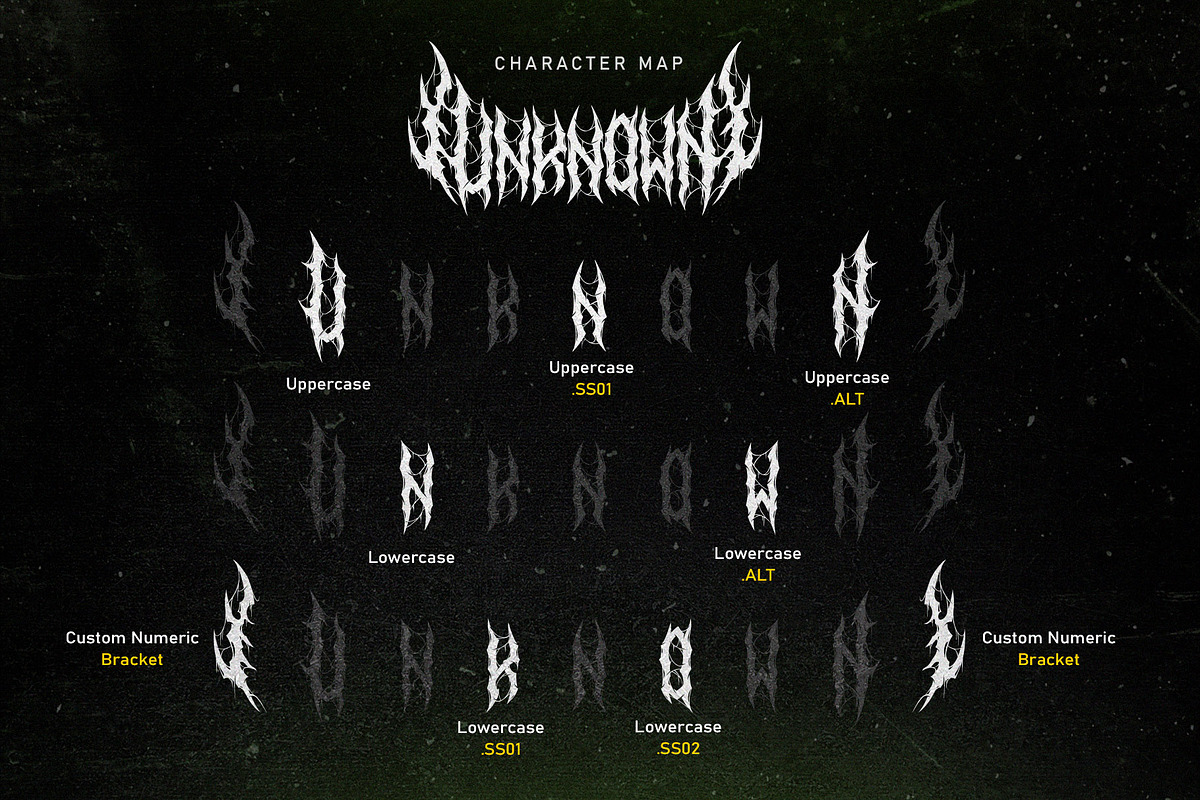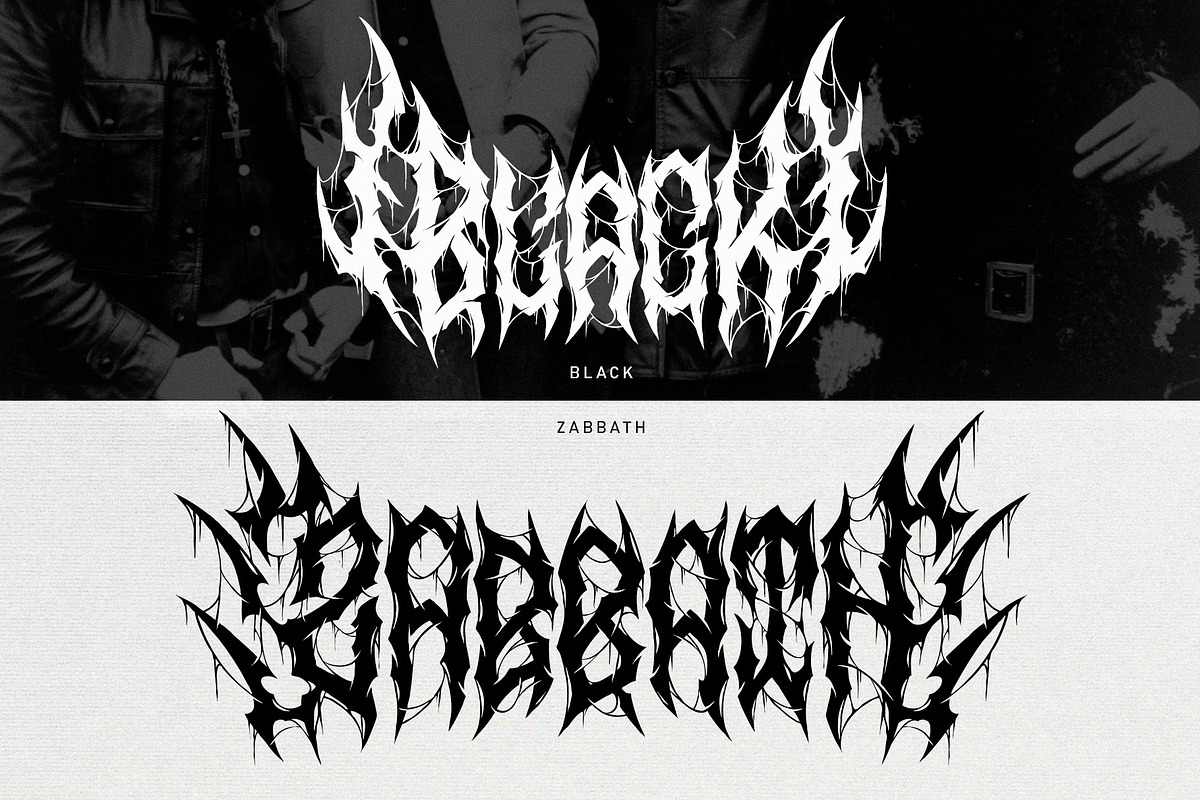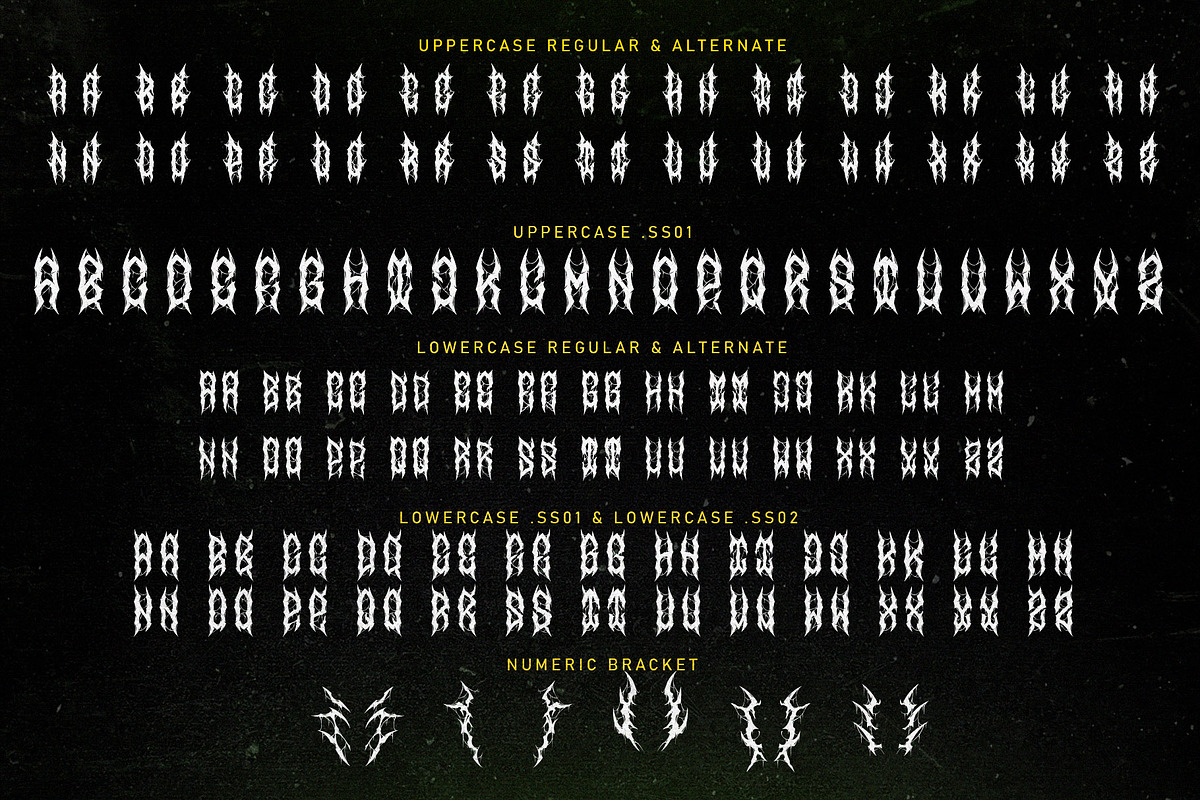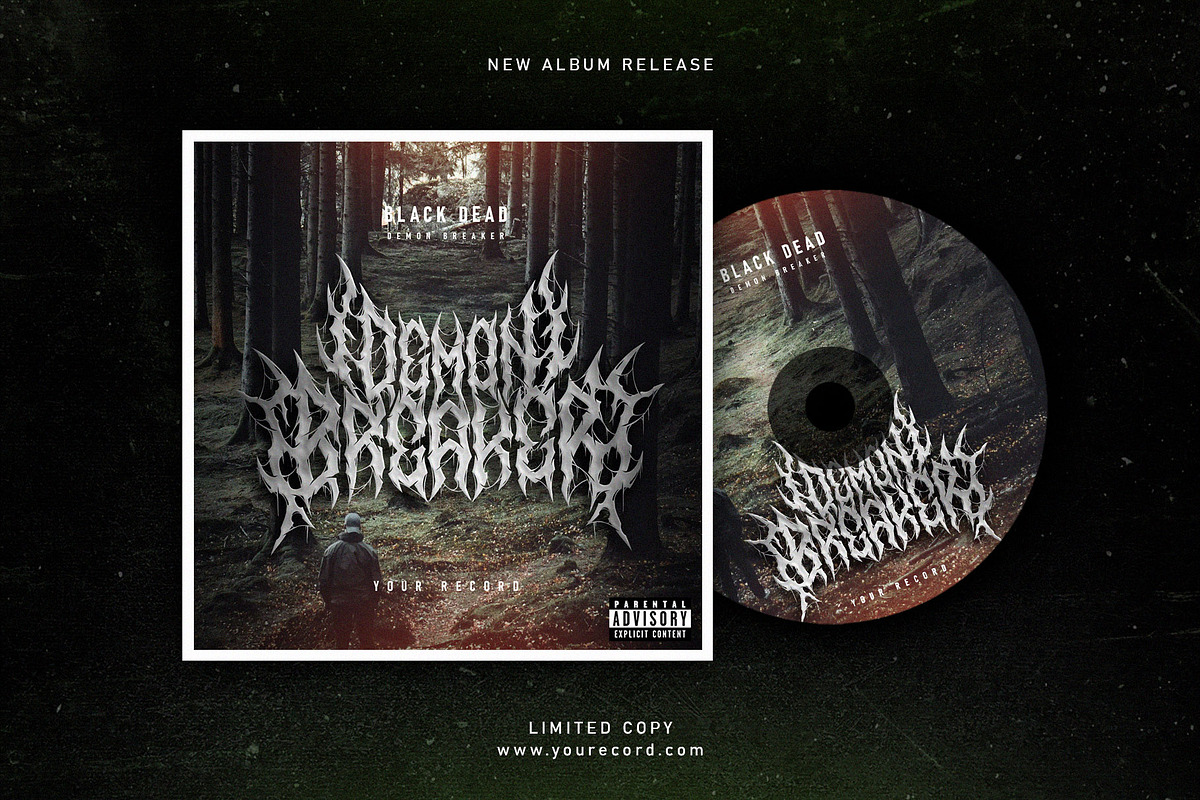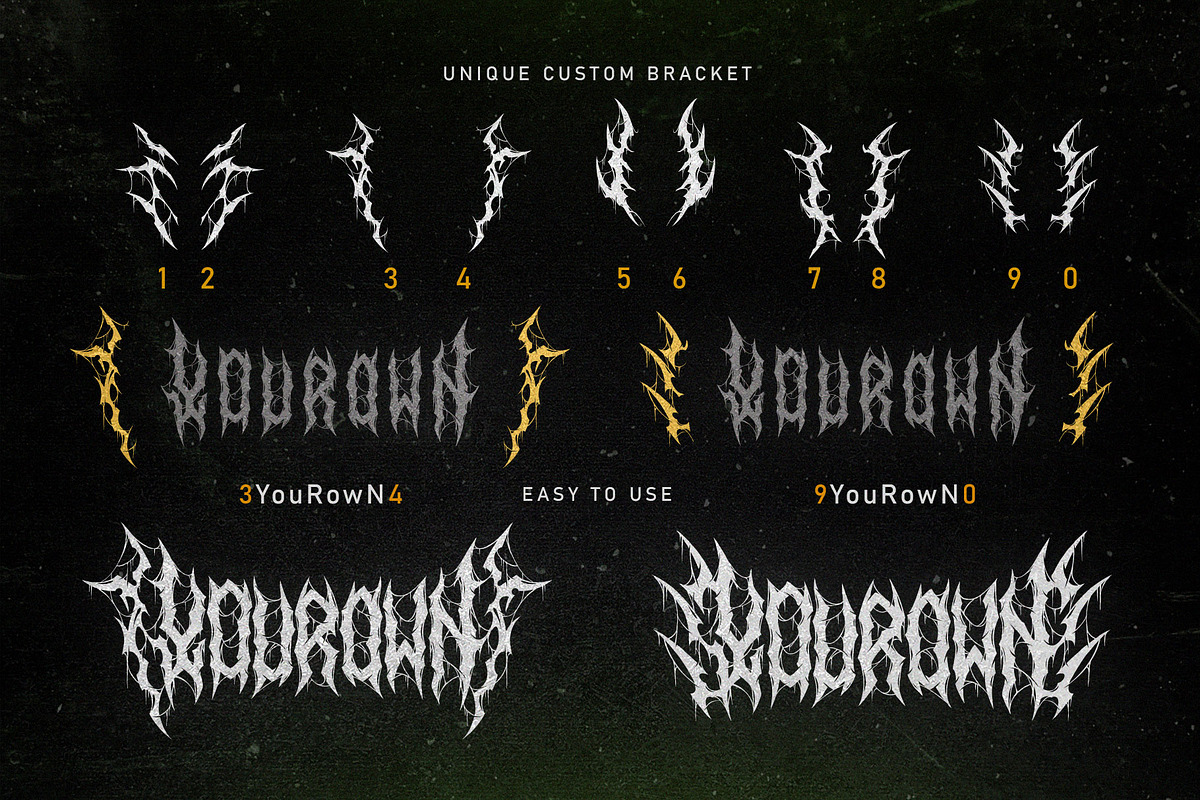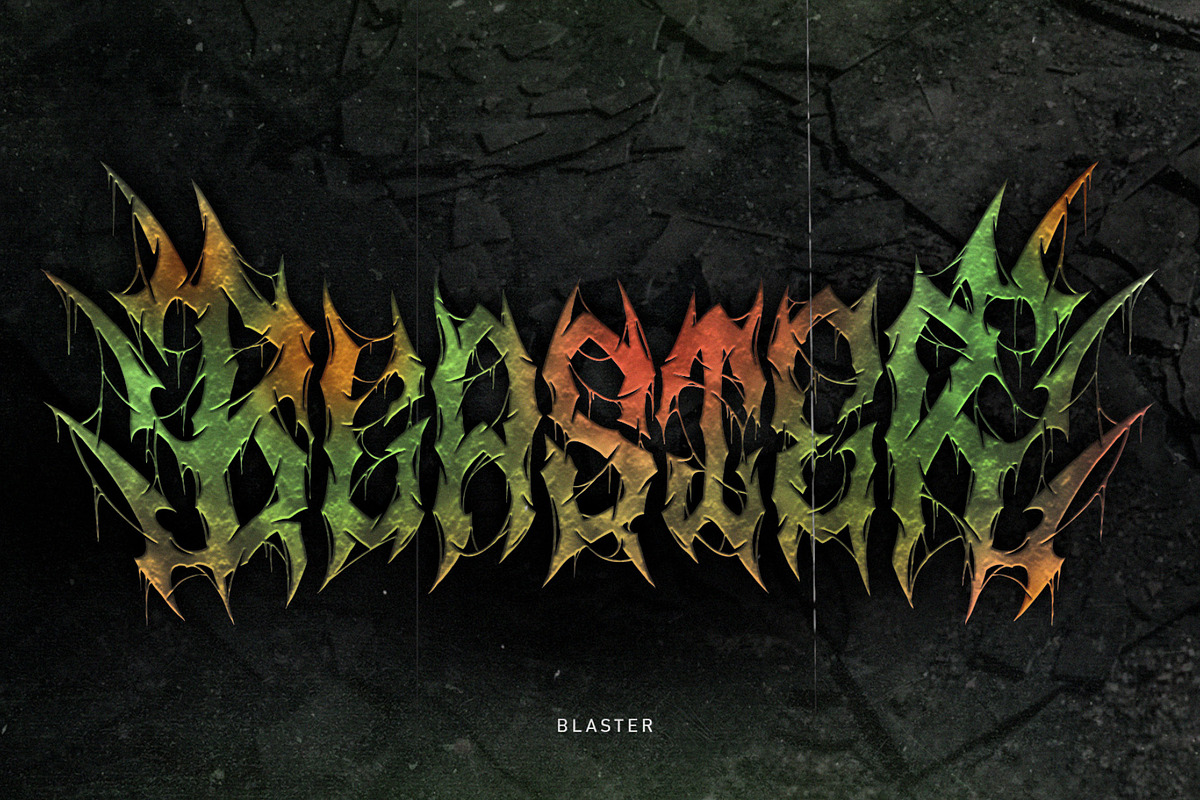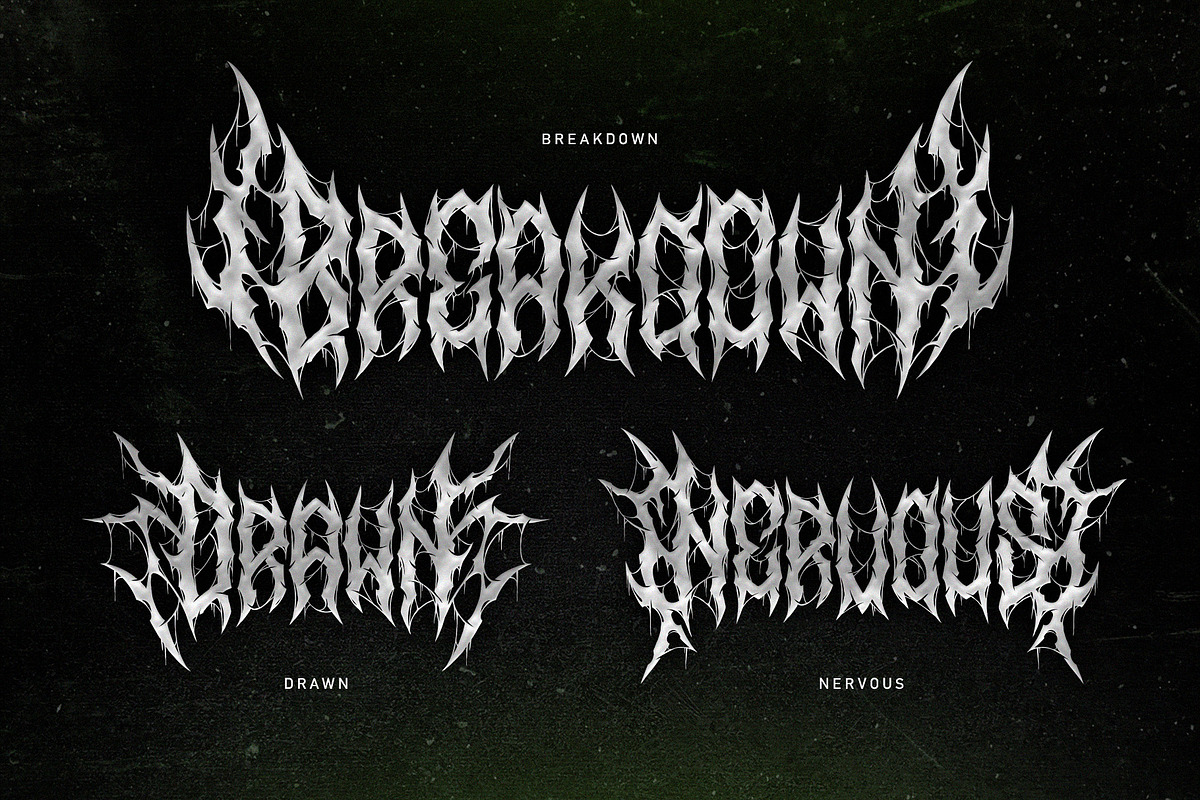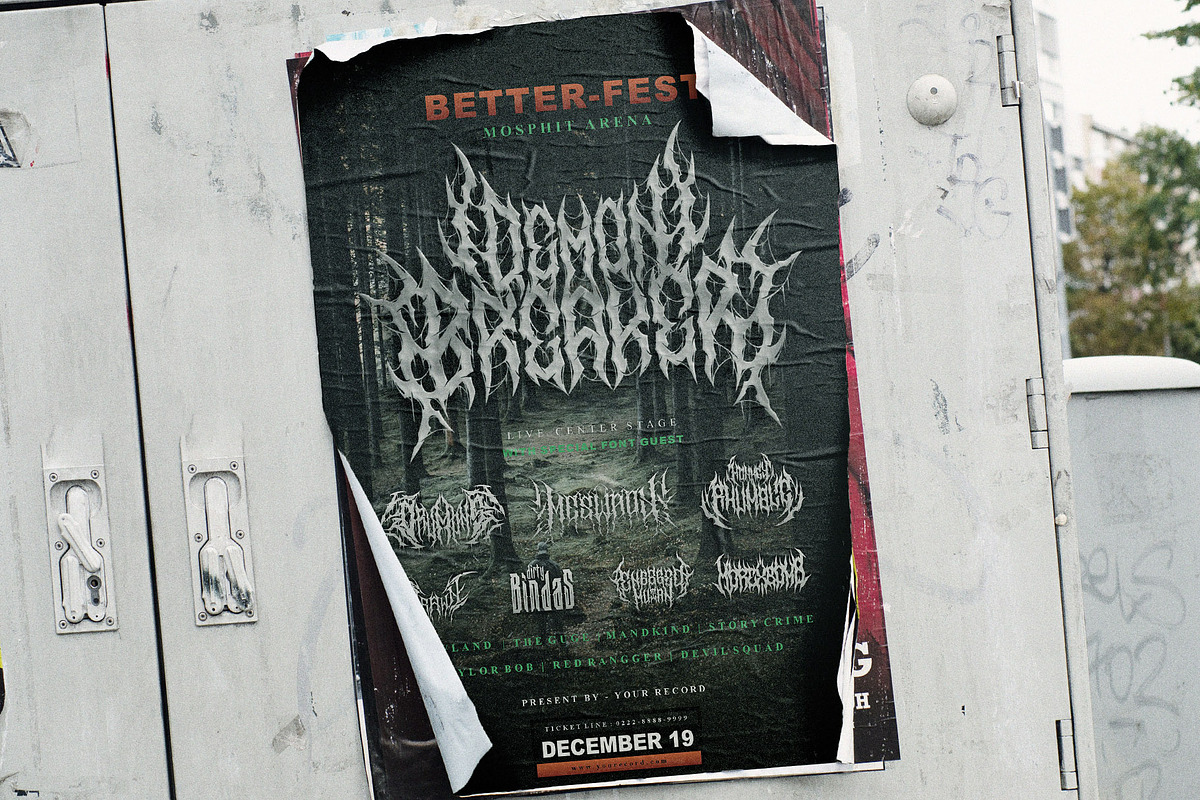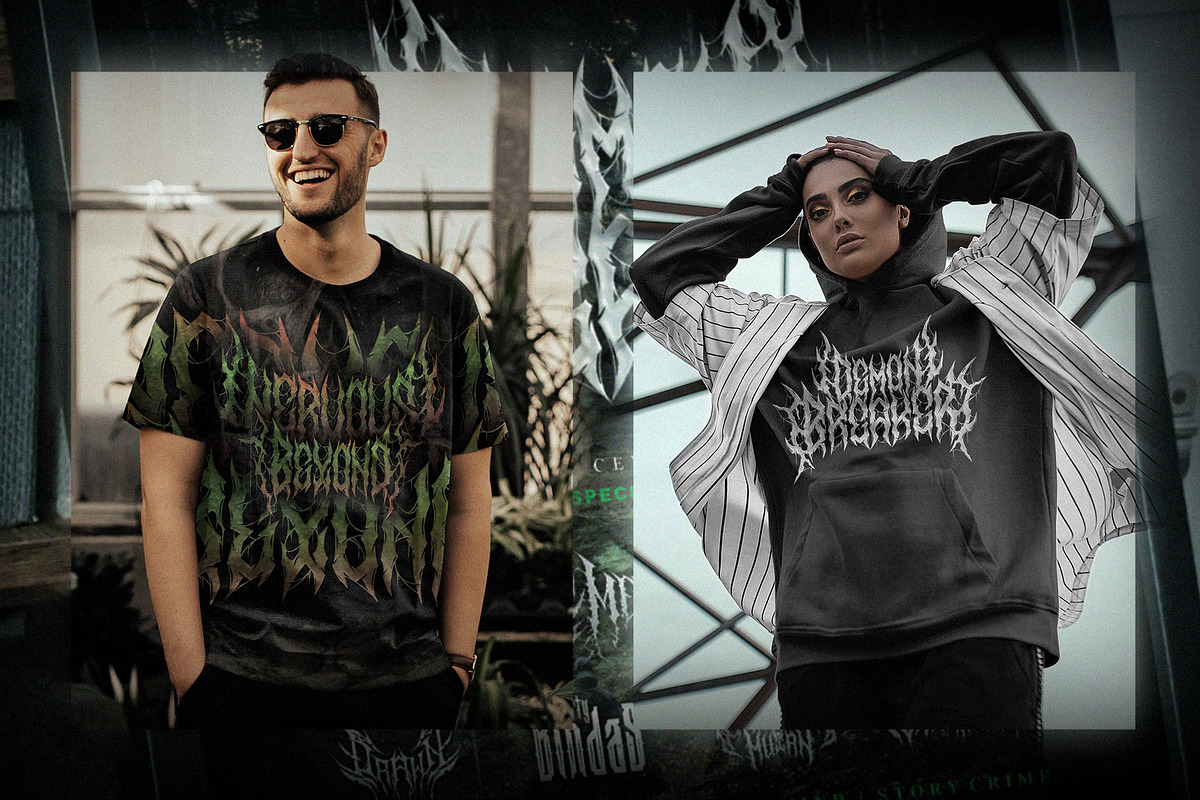
Nervous Beyond | Metal Font
Nervous Beyond drips with chaos — sharp, tangled, and born from the darker side of sound. The letterforms feel like they're crawling out of a nightmare, blending twisted energy with raw emotion. It’s not just a font — it’s a vibe. Perfect for bands, metal merch, or anything that needs to scream without saying a word.